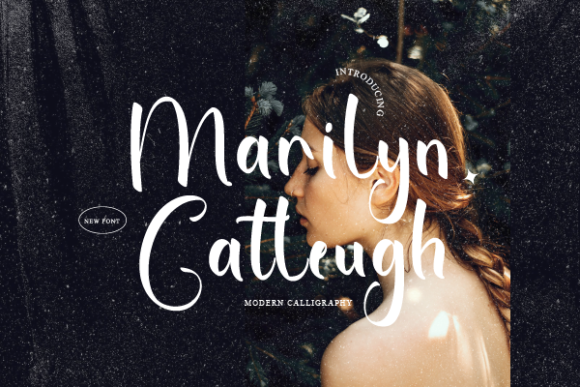
Welcome to the world of Marilyn Catleugh, a font family that exudes elegance, charm, and timeless beauty. Designed with precision and crafted with passion, Marilyn Catleugh is a script font that oozes sophistication and personality. Enter a world where words dance with grace and leave an everlasting impression.
Immerse yourself in the allure of Marilyn Catleugh, a font that captures the essence of handwritten elegance. Each letter dances across the page, carrying with it a story of love, laughter, and heartfelt emotions. With its soft curves and delicate flourishes, Marilyn Catleugh brings a touch of romance and femininity to your digital creations.
Unleash your creativity and let Marilyn Catleugh add a dash of magic to your projects. From wedding invitations and greeting cards to social media posts and website designs, this font is your perfect partner in creating visuals that resonate with your audience. Its versatility extends to logos, branding, and packaging designs, lending a touch of class and sophistication wherever it's used.
With Marilyn Catleugh, you're not just choosing a font; you're embracing a journey of self-expression and artistic exploration. Each letter becomes a brushstroke, painting emotions and ideas onto the digital canvas. Create designs that whisper of elegance, exude warmth, and leave an indelible mark on the hearts of your readers.
Dive into the world of Marilyn Catleugh and discover a font that's more than just a collection of characters. It's an invitation to embark on a creative adventure, to weave stories with every word, and to create visuals that captivate and inspire. Let Marilyn Catleugh be your guide as you transform your digital creations into masterpieces that resonate with your audience.